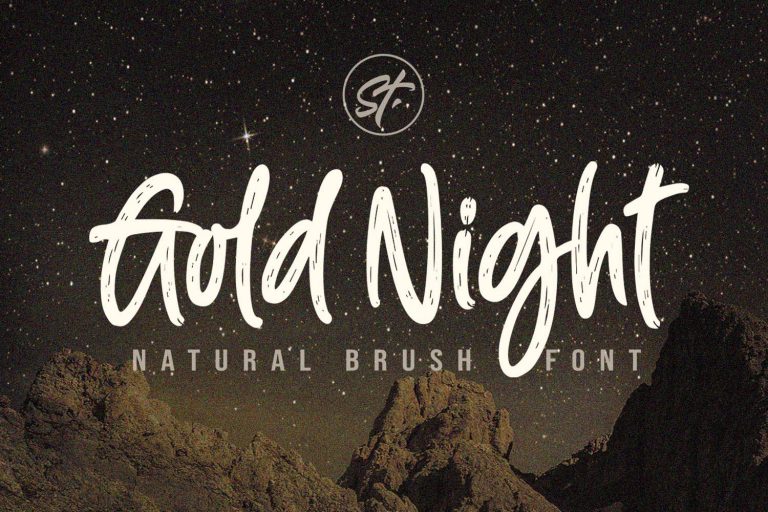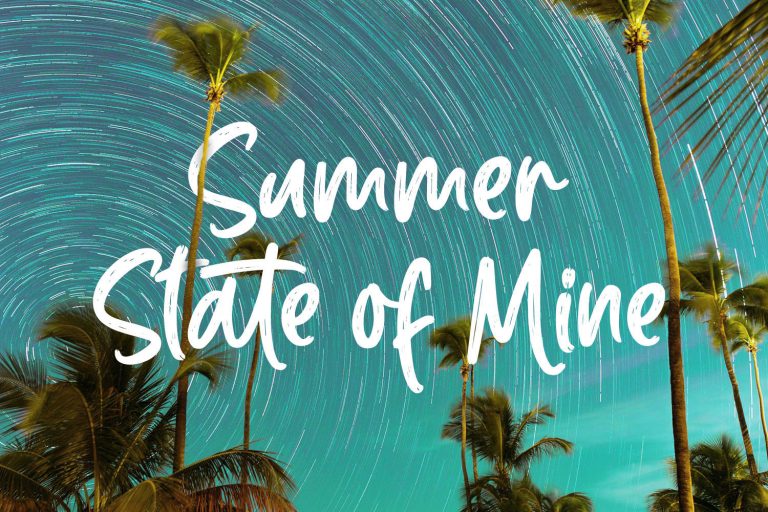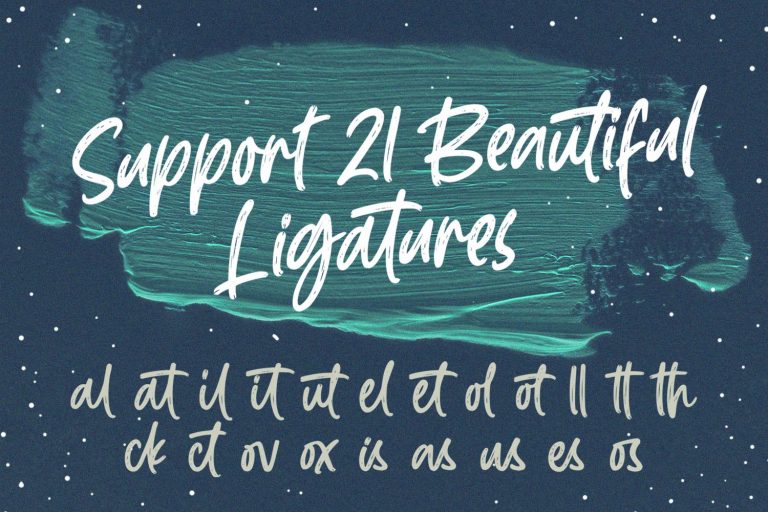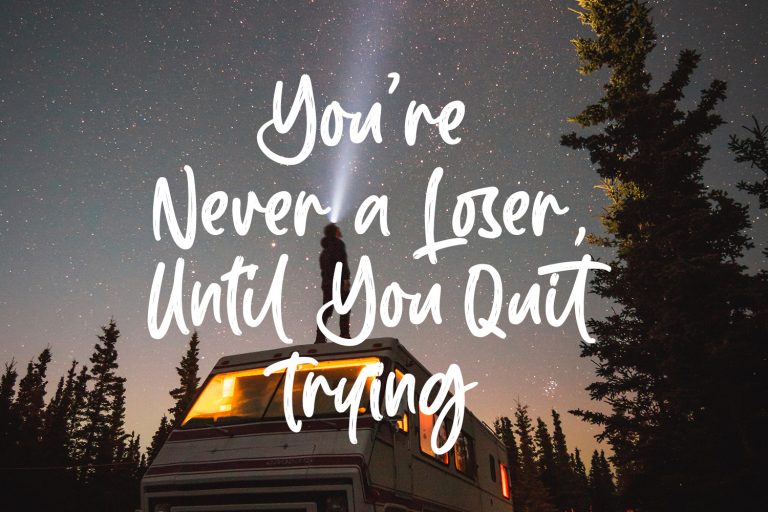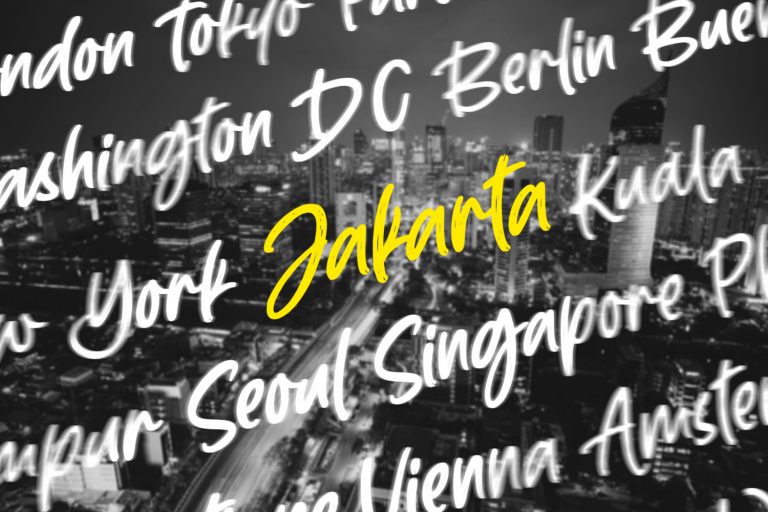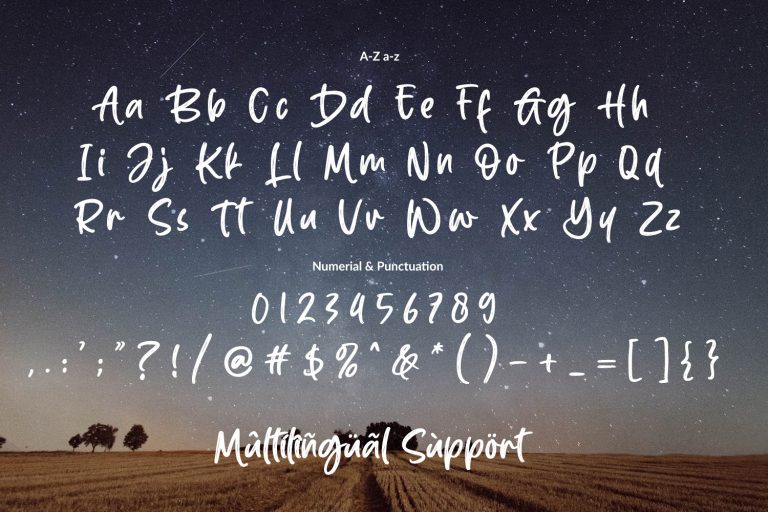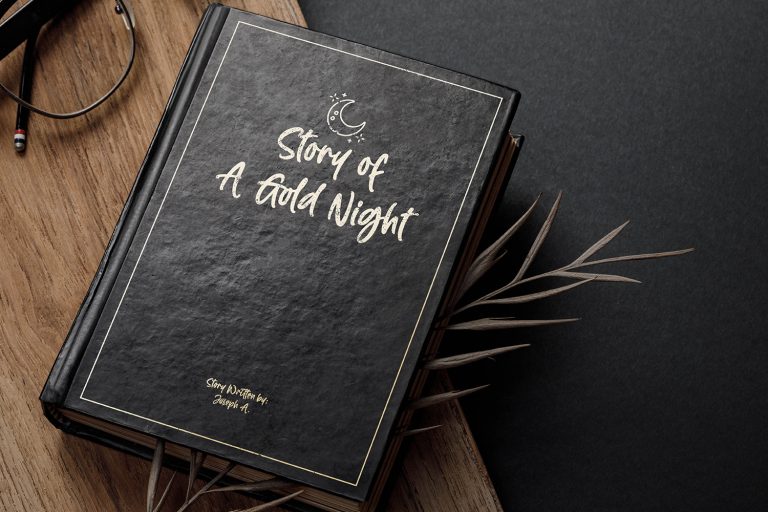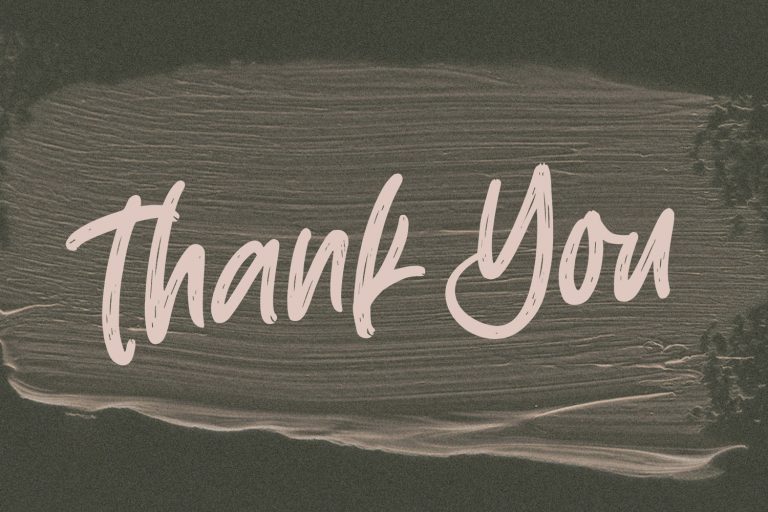
- Gold Night – Natural Brush Font
Gold Night Is A Natural Brush font. This is stylish brush font with a modern touch. With swift strokes and authentic dry textures,
it’s an irresistibly charismatic & confident font choice for a range of design projects.
Gold Night is perfect for branding projects, homeware designs, product packaging, Signature, Clothing – or simply as a stylish text overlay to any background image.
Ligatures • Are also available for several lowercase characters (double-letters which flow more naturally). These are only accessible via software with opentype capability or a glyphs panel, e.g. Photoshop/Illustrator.